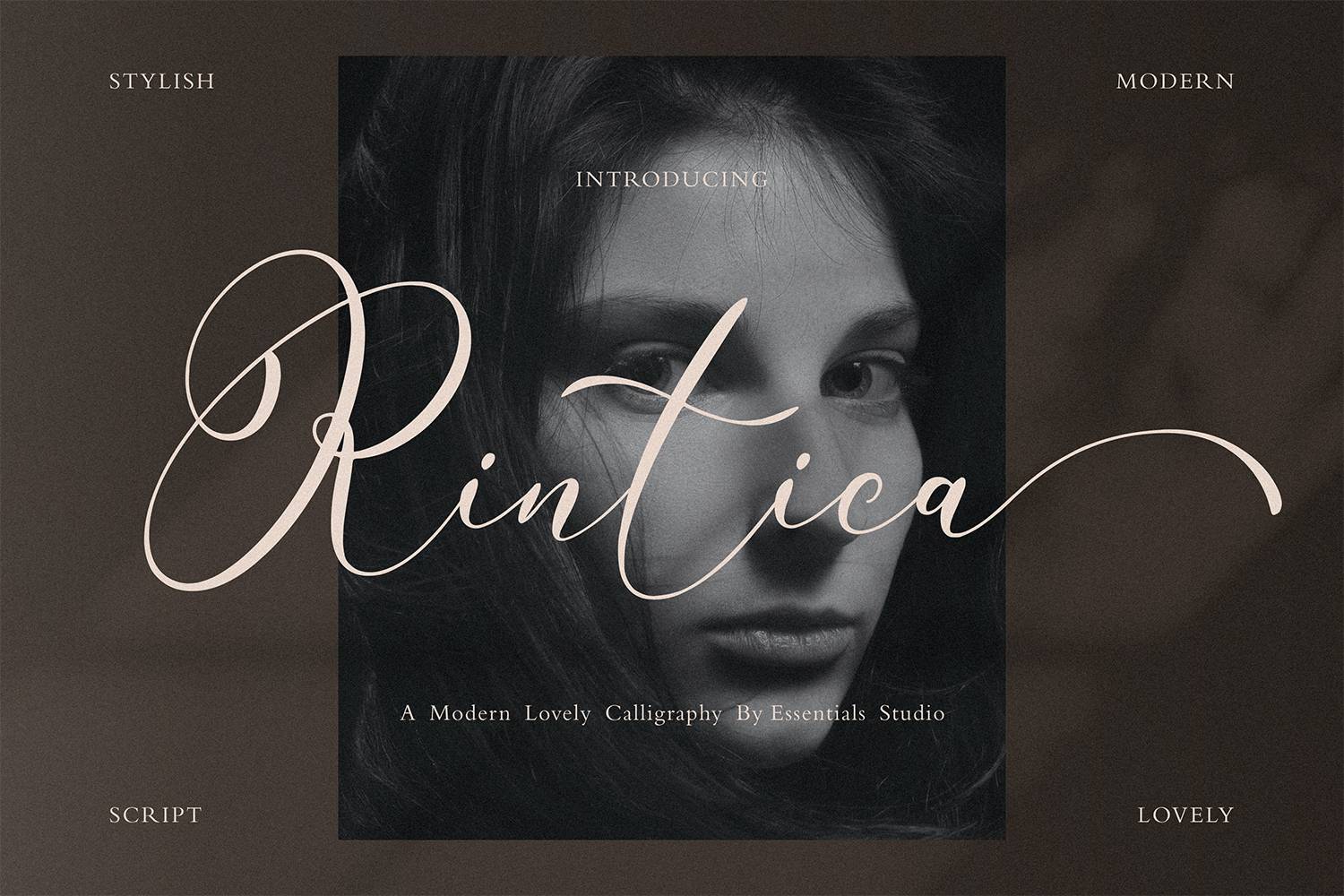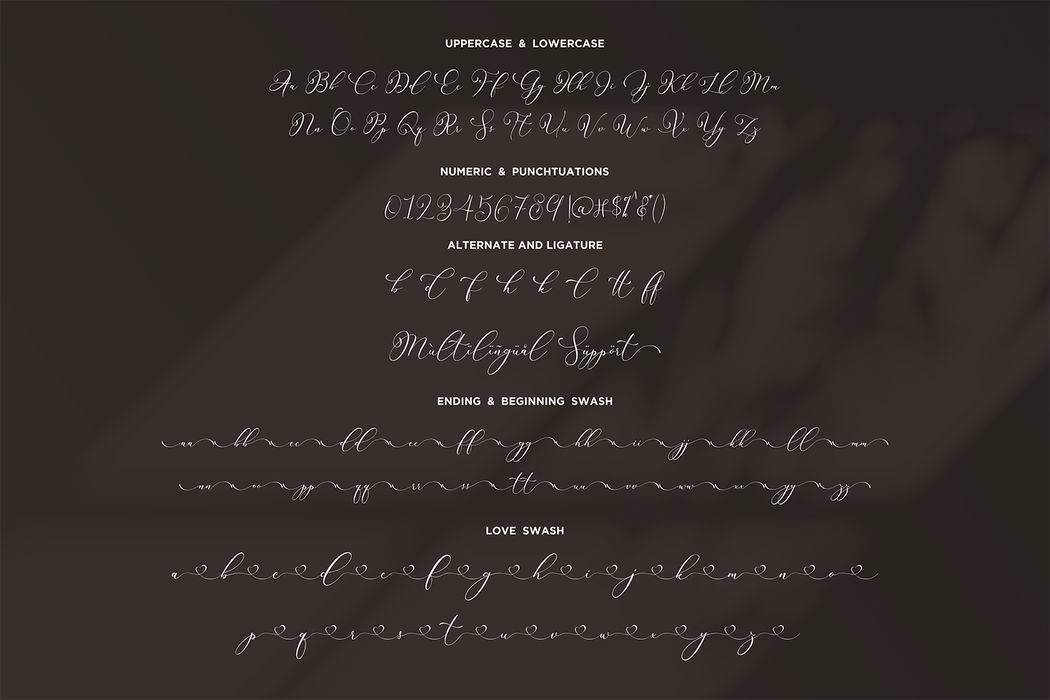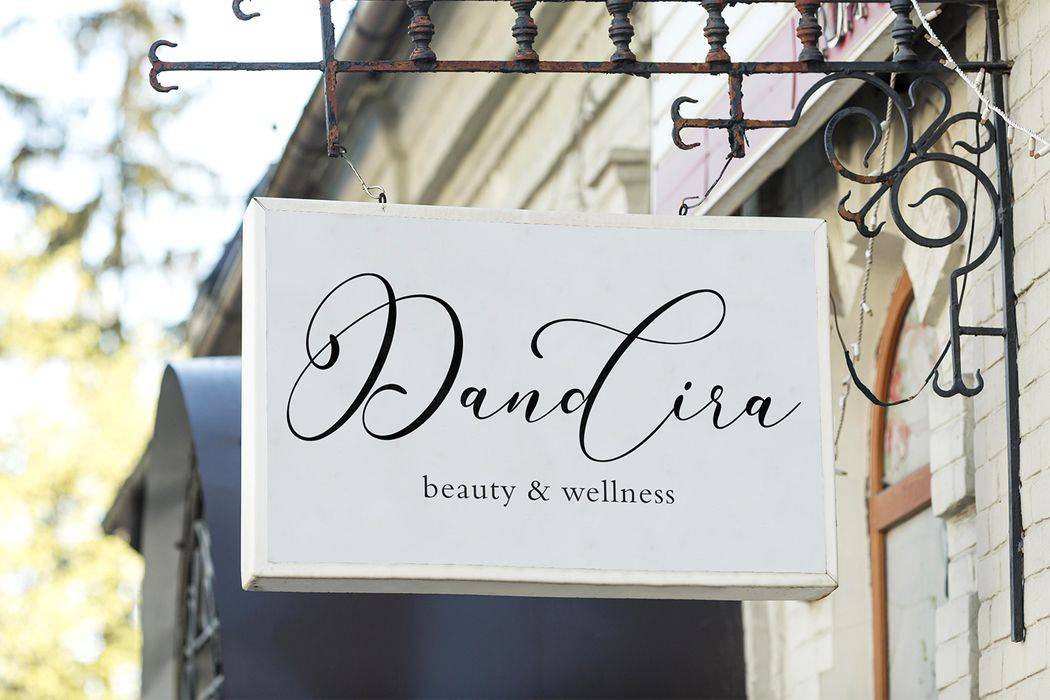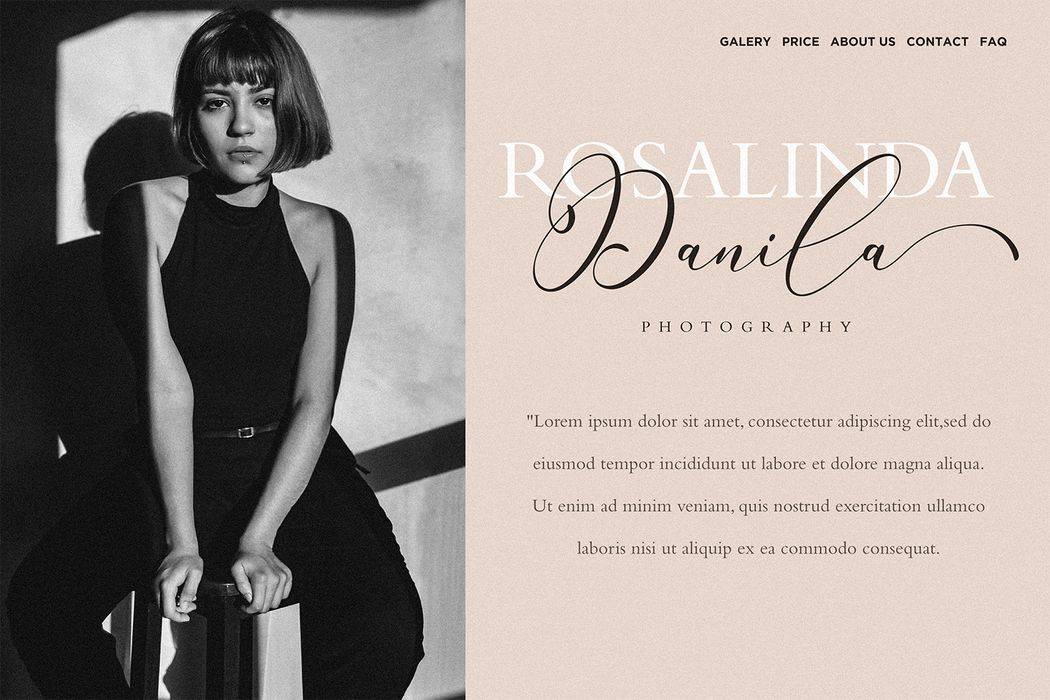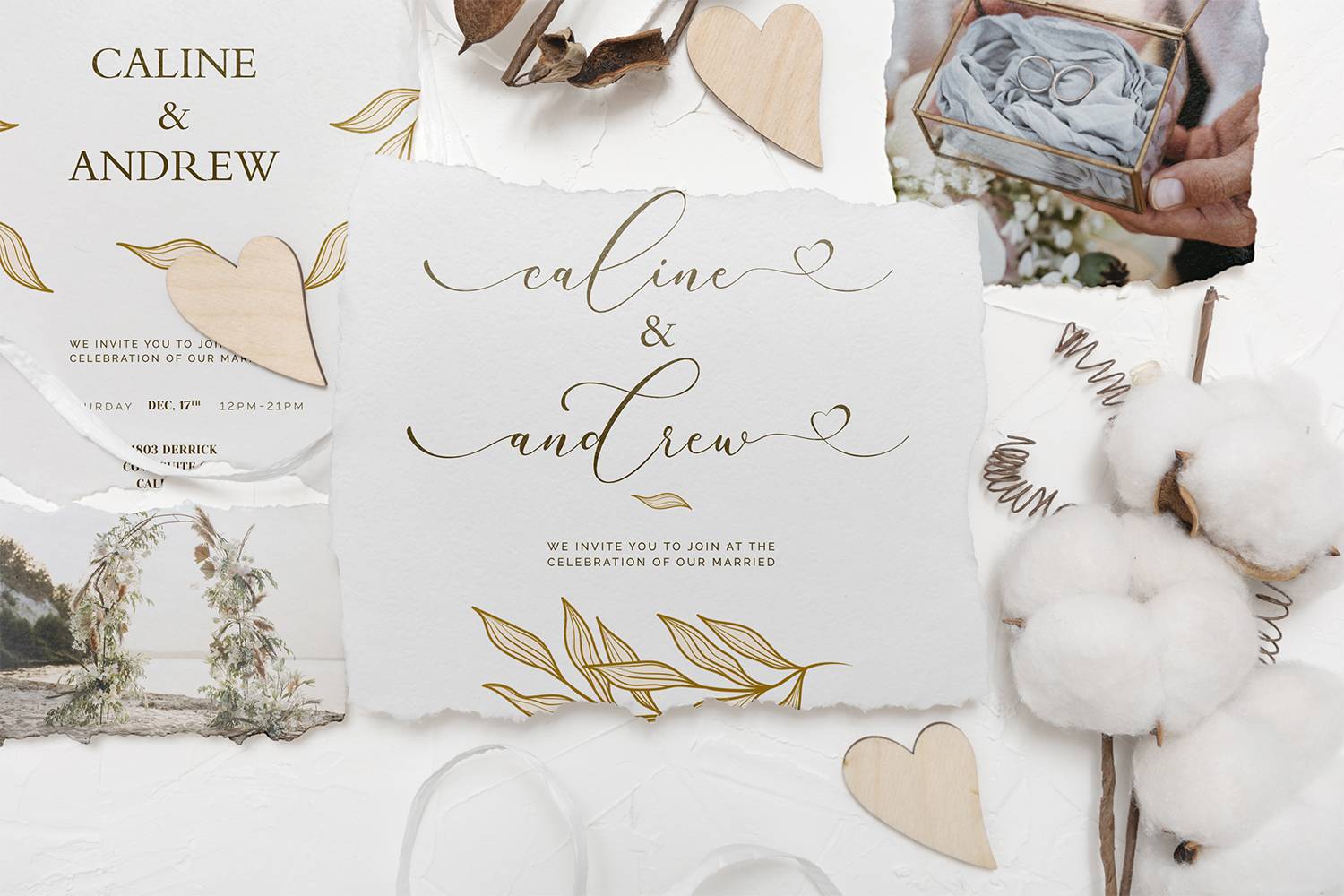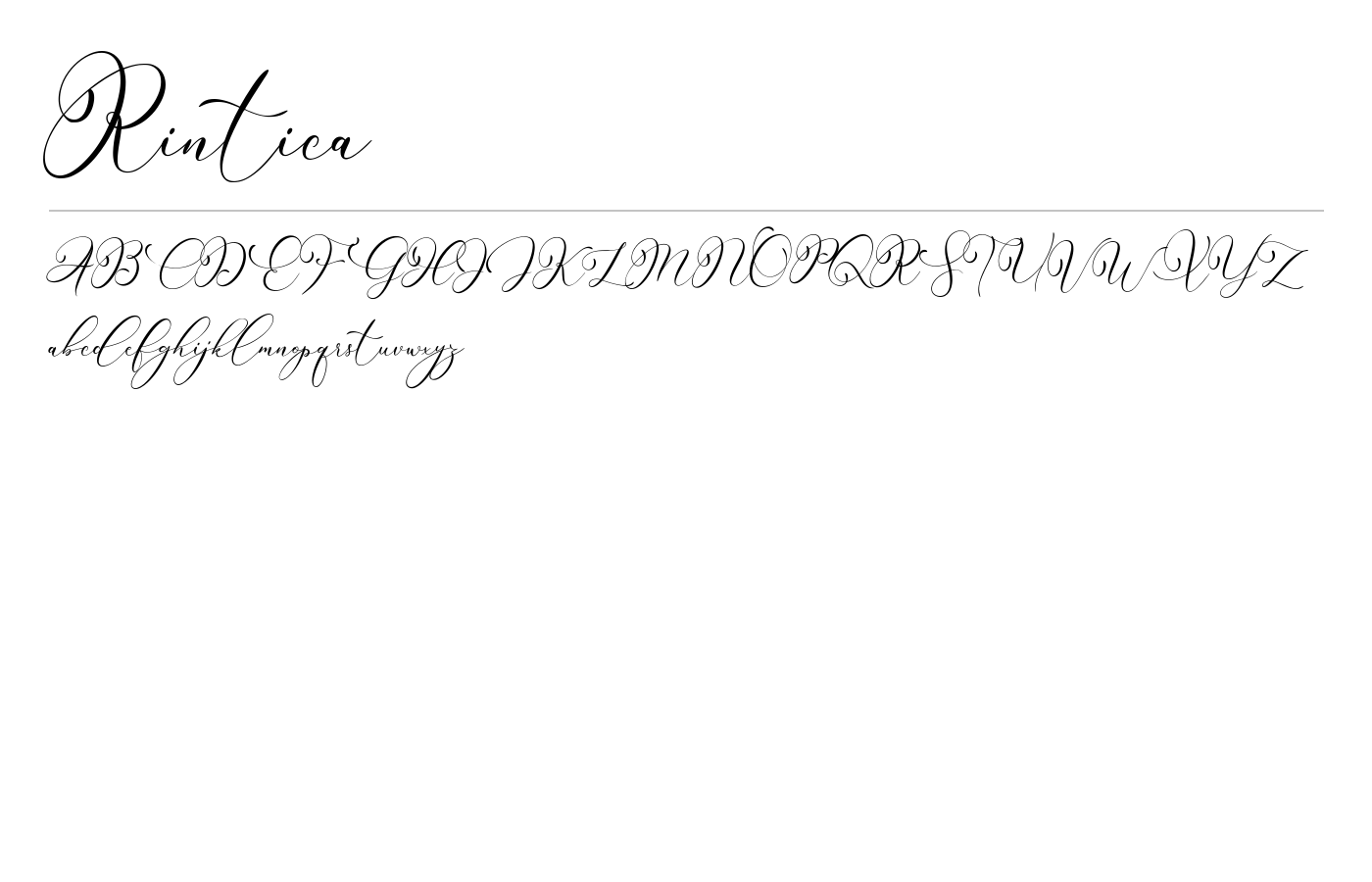
Rintica is an elegant script font characterized by its flowing, delicate strokes and graceful swashes that create a sophisticated, handwritten look. Its thin, light weight and high contrast strokes make it ideal for luxury branding, wedding invitations, and upscale packaging, where a refined, romantic feel is desired. This font works best in large sizes or headers, adding a touch of artistry and elegance to any design.
Rintica Font
About Rintica Font
| Font family | Rintica Font |
| Designer | Sulthan Mada Maulana Tsani |